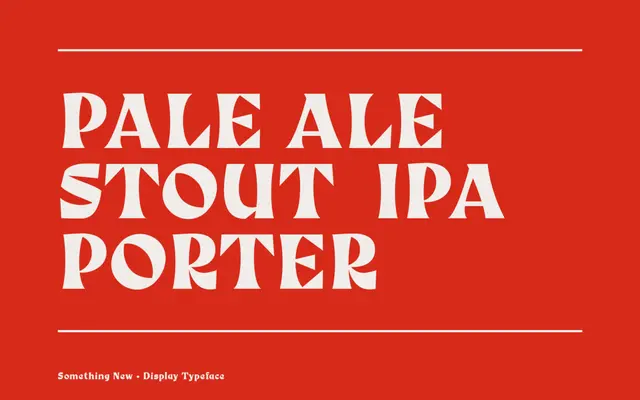
Something New Display Font
A serif blackletter display font in two styles, aimed at logo designers working on logotypes, heavy headings and packaging.
Blending blackletter structure with serif details and a vintage character, this is a display-focused family designed for logotypes, heavy headings and label work. It ships in Normal and Italic, with stylistic sets, discretionary ligatures and over 400 glyphs covering Basic, Western European, Central European and South-Eastern European Latin scripts. Available as OTF and web font formats.
The foundry explicitly describes it as a serif blackletter, blending blackletter construction with serif details and a vintage character for display use.